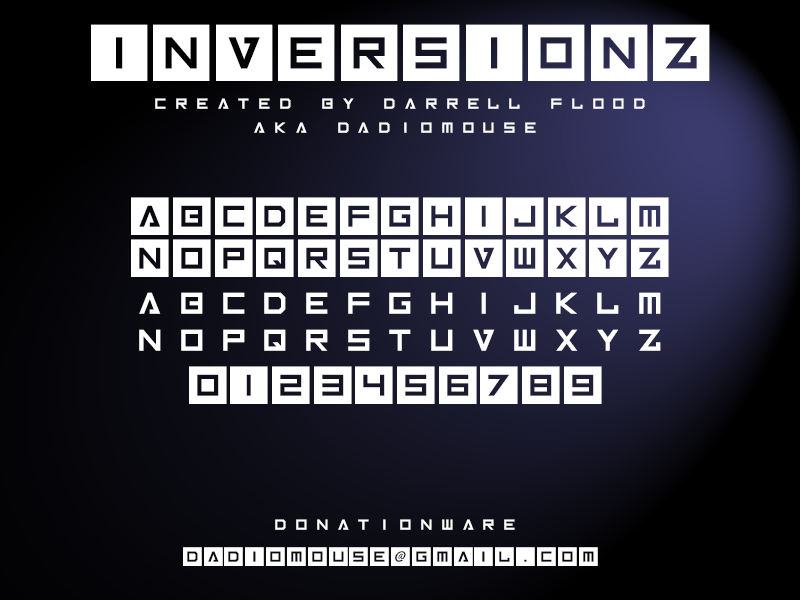
Inversionz Font
About the Inversionz Font
Inversionz is sharp Sans encased in boxes. With some unique flair, this font comes both in and out of the box as well as italic versions of each. Created in by Darrell Flood in 2014, Inversionz comes with support for many Latin based languages.